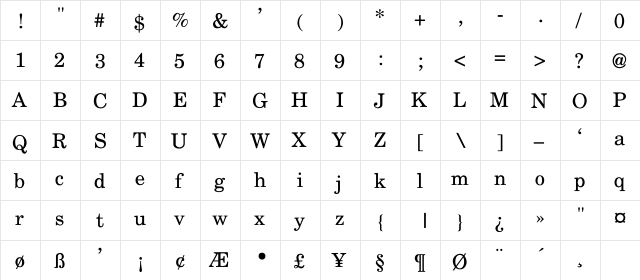
CenturySchoolbook-Thin Regular
Design Context for CenturySchoolbook-Thin Typeface
CenturySchoolbook-Thin is a composed and adaptable typeface that performs quietly and consistently across a wide range of design contexts. The delicate stroke weight brings airiness and refinement to layouts.